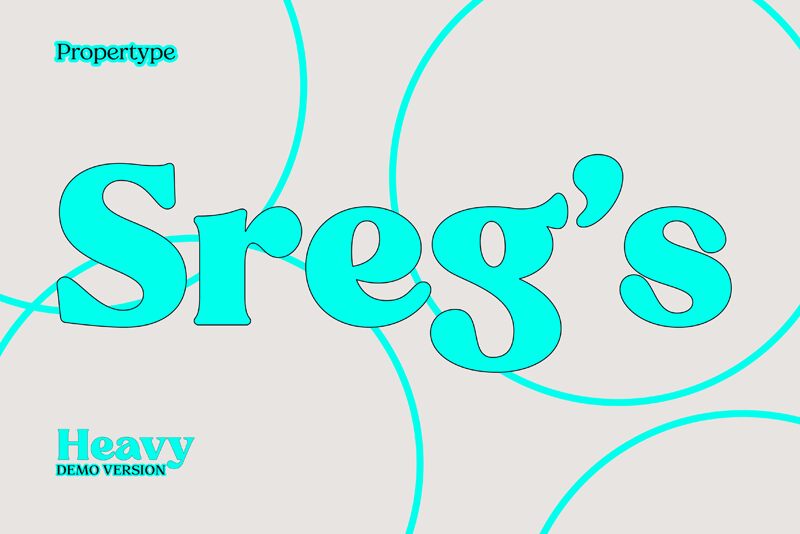
Sregs Serif Display Heavy is a bold, semi-expanded serif font designed by Propertype Foundry. With its inspiration drawn from 1960s typography and a touch of modernity, this font is perfect for projects that require a retro yet contemporary feel. The reflexive serifs and soft transitions enhance readability and recognition, making it suitable for various purposes such as editorial design, branding, packaging, and website headings. Its versatility allows it to bring a unique aesthetic to any project.
Sregs Serif Display Heavy
Sreg's Serif Display Family